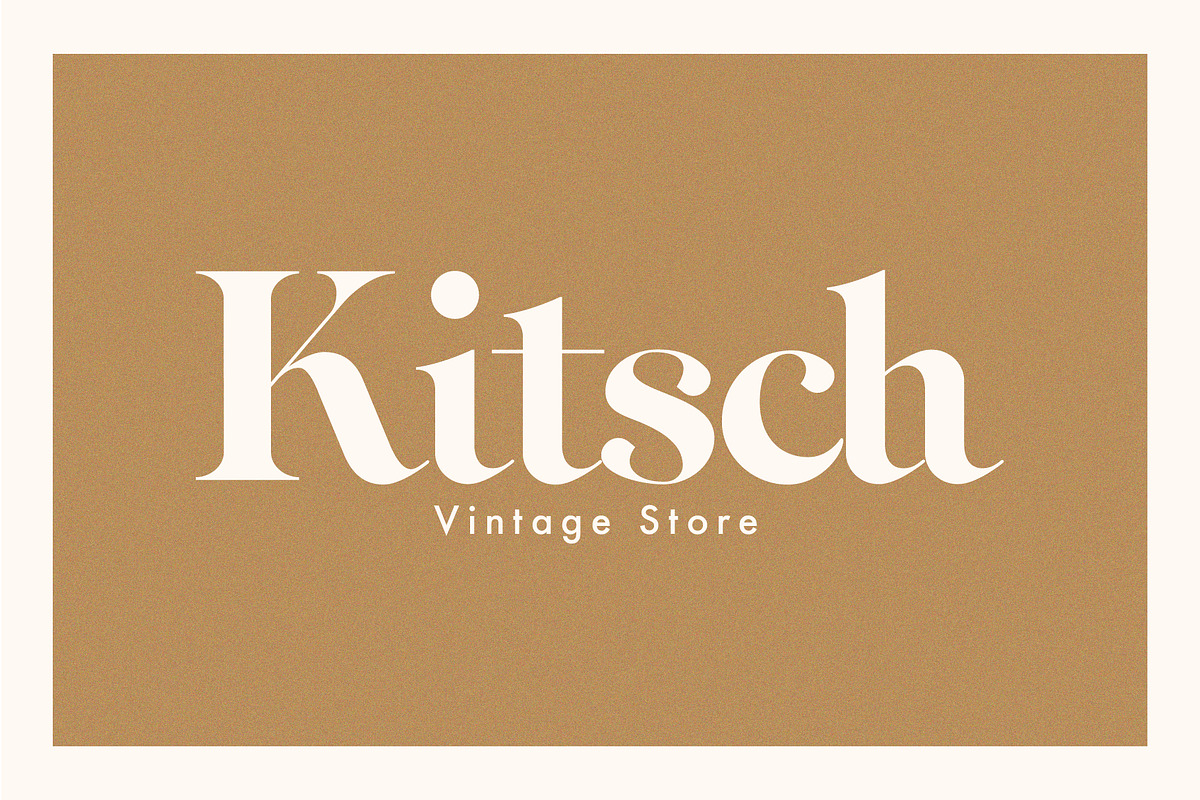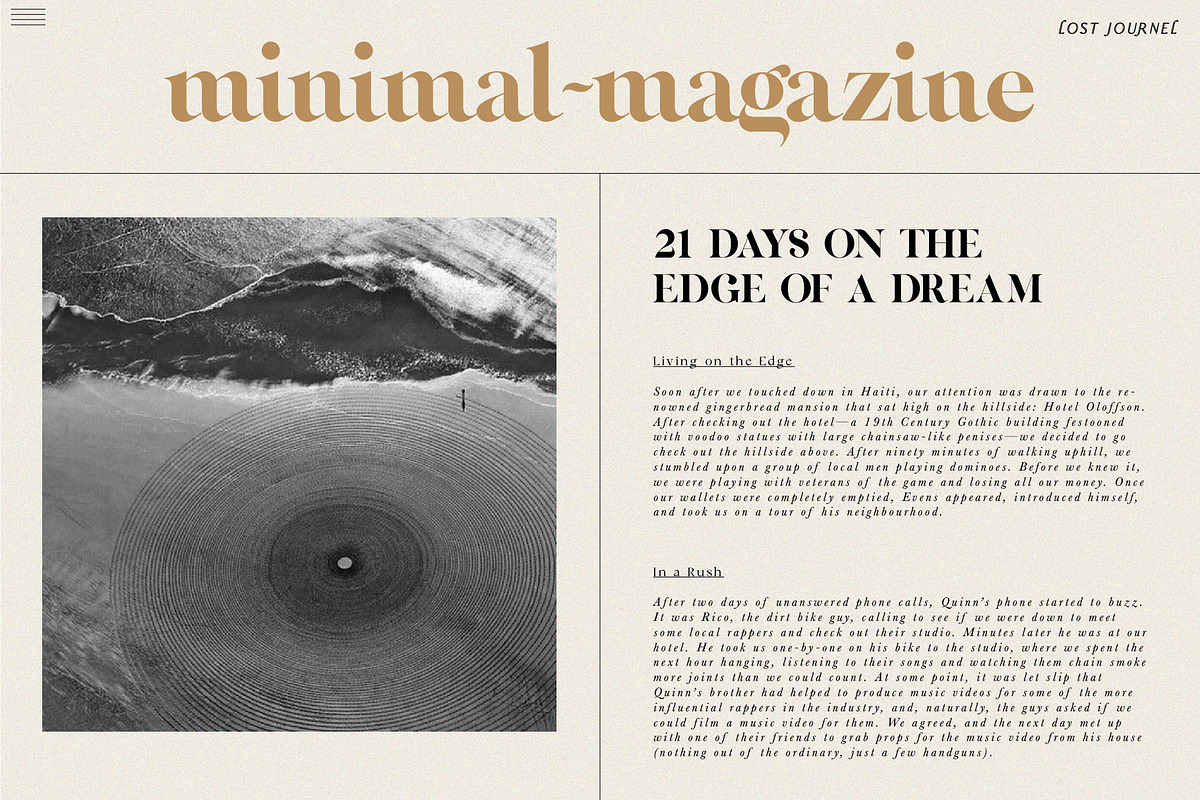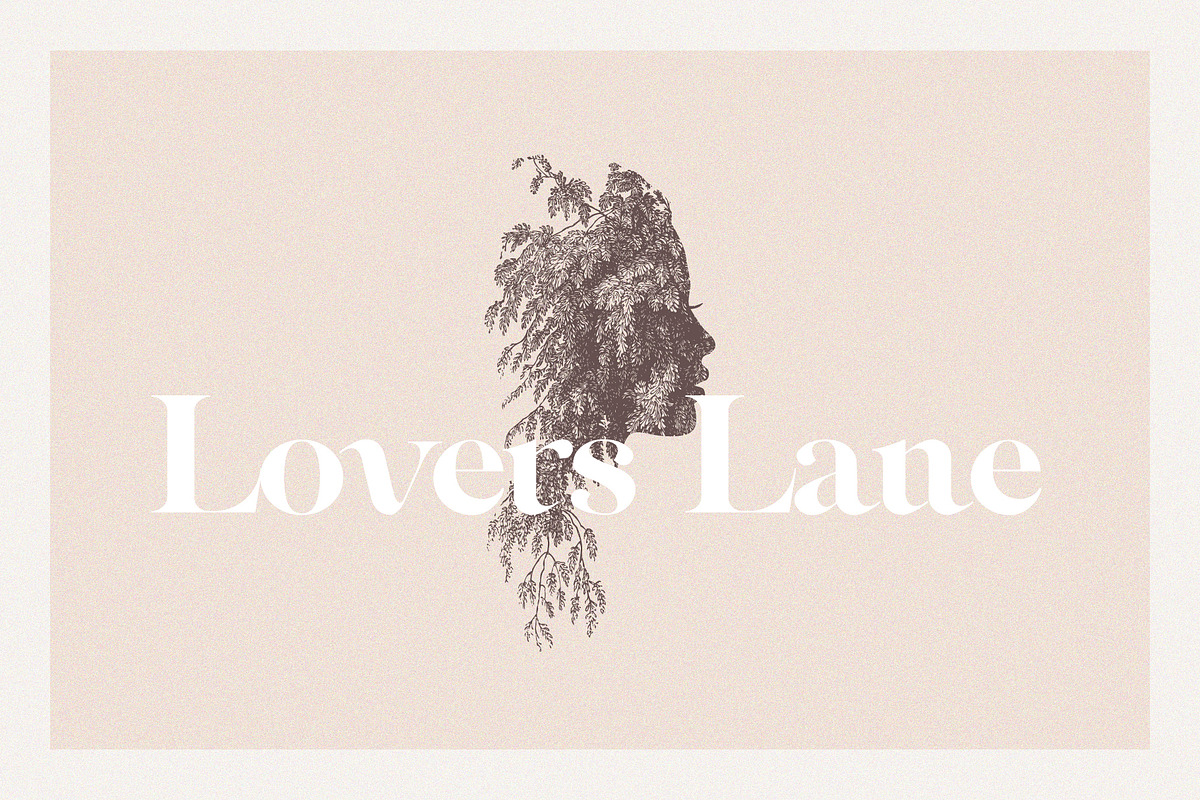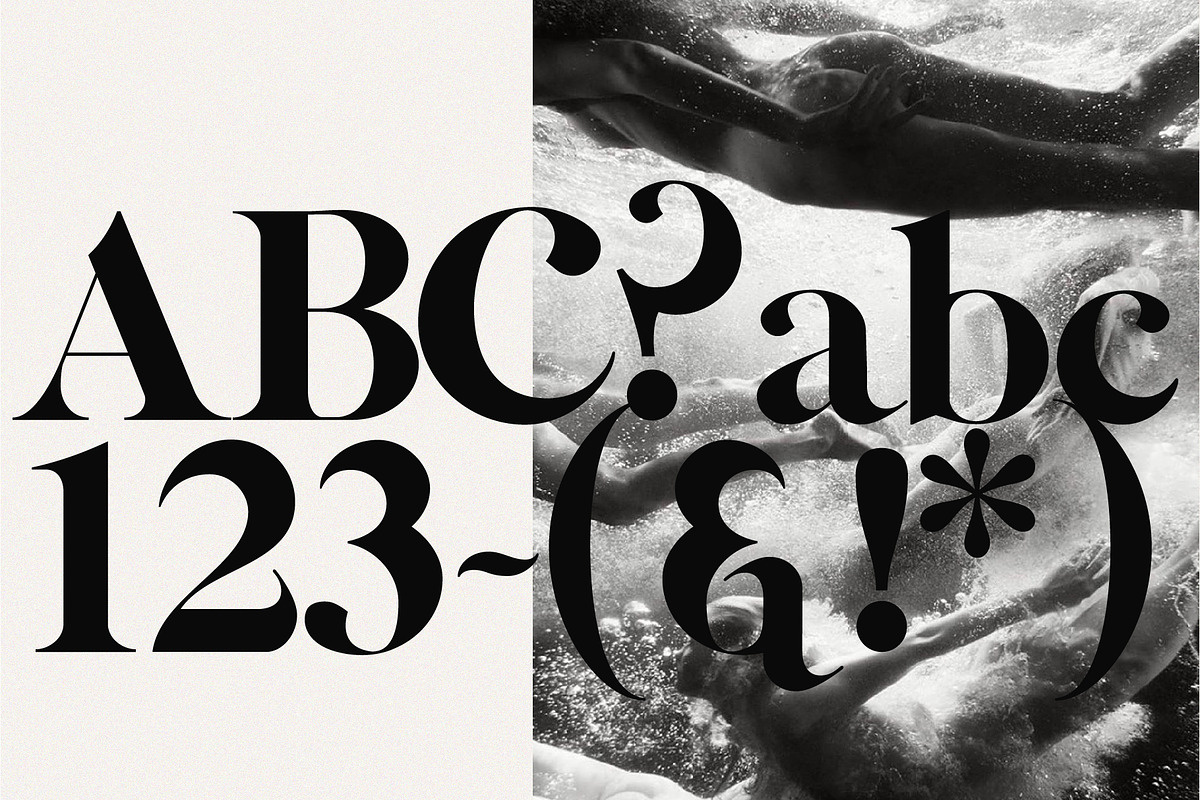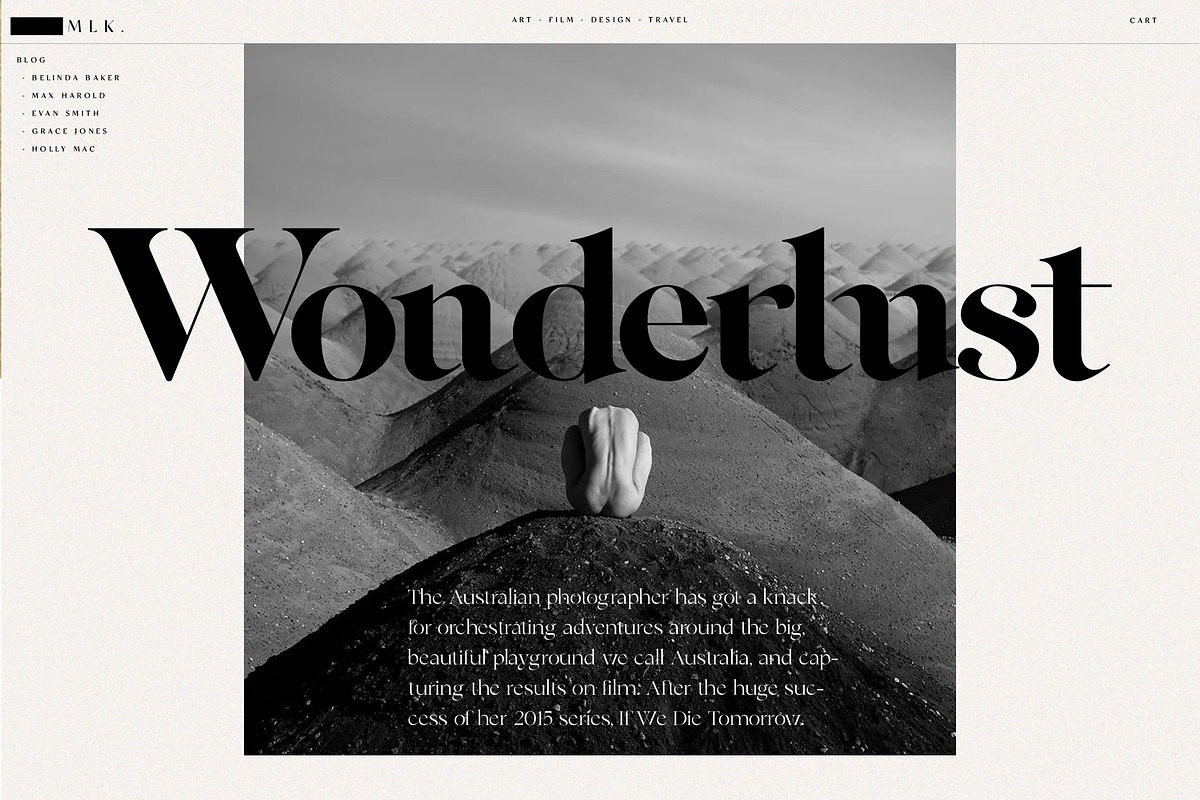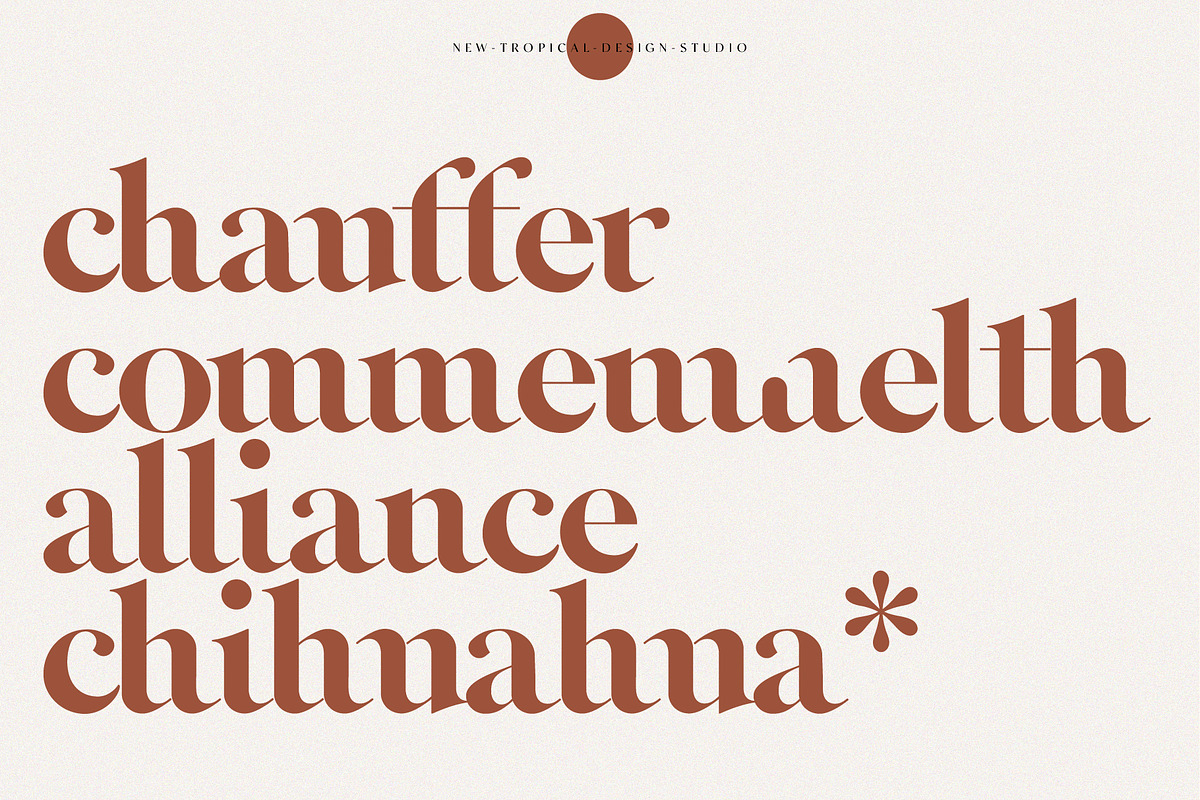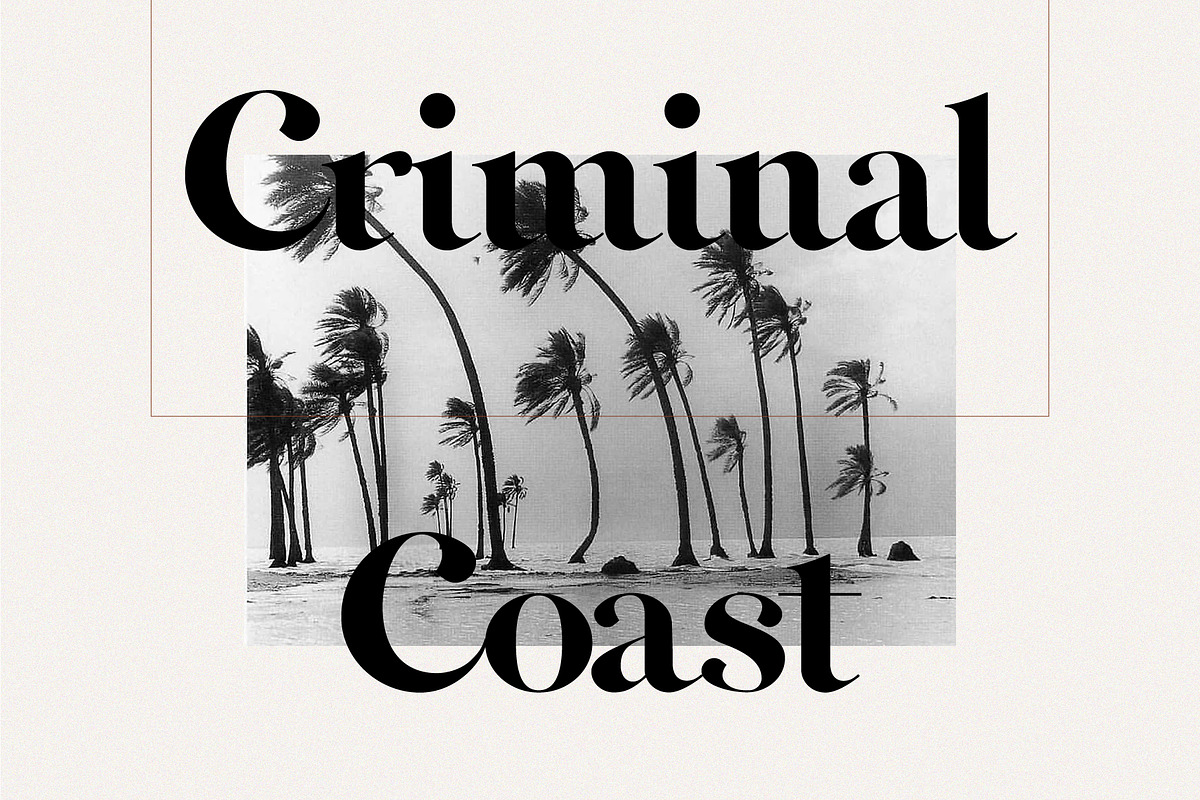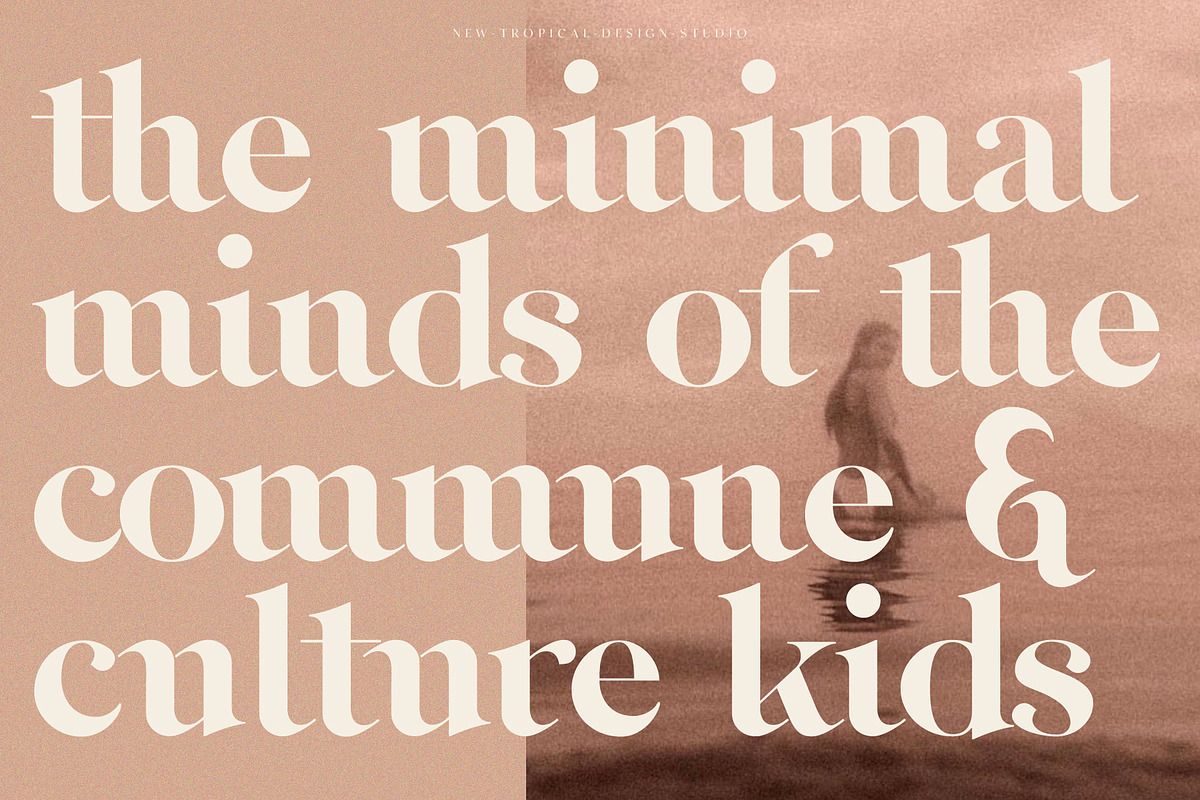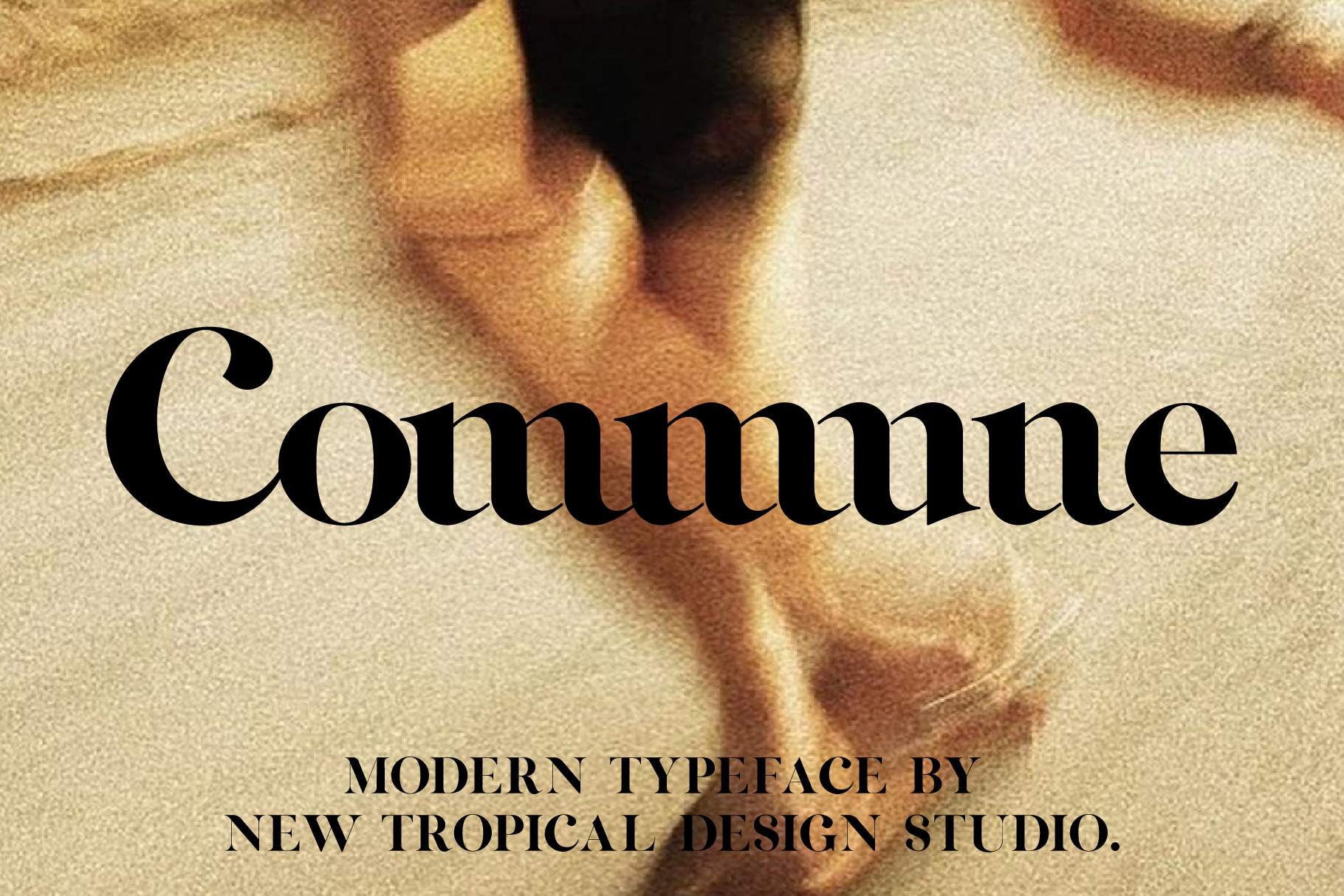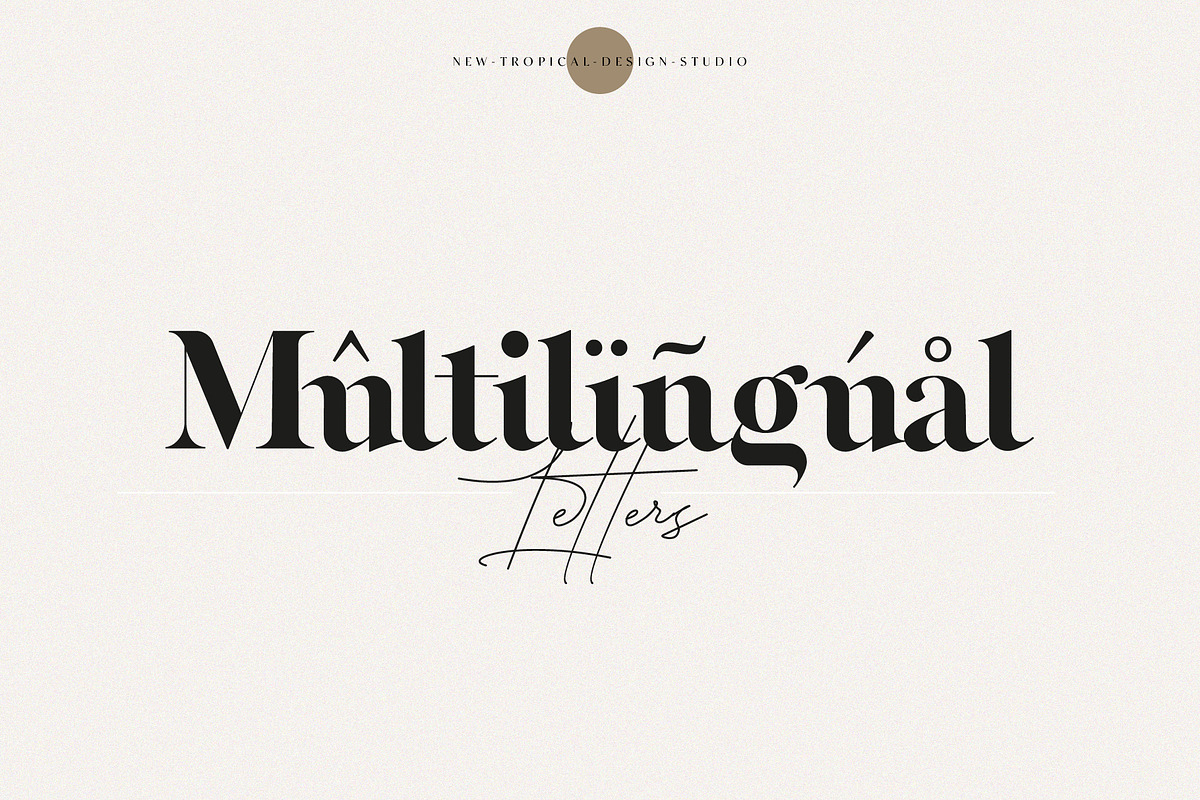
Commune - Modern Serif Font
Commune is all cool. A high contrast serif font with smooth links and sharp serifs. It's a little vintage and a little modern. A mix between a retro serif and an old school blackletter typeface, Commune does it all!